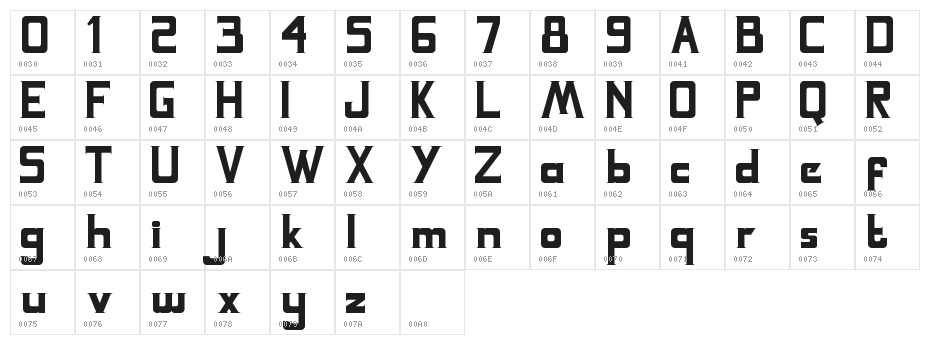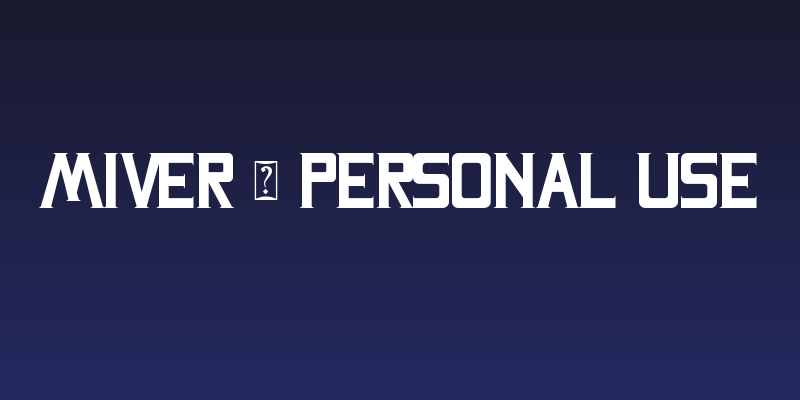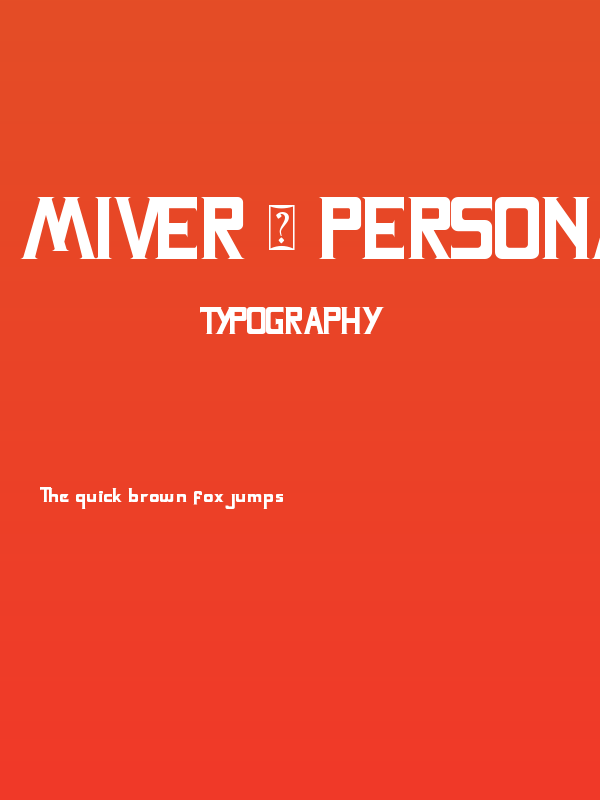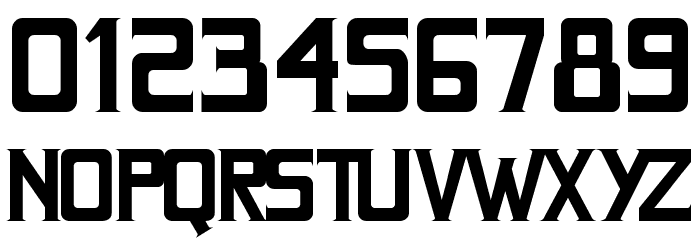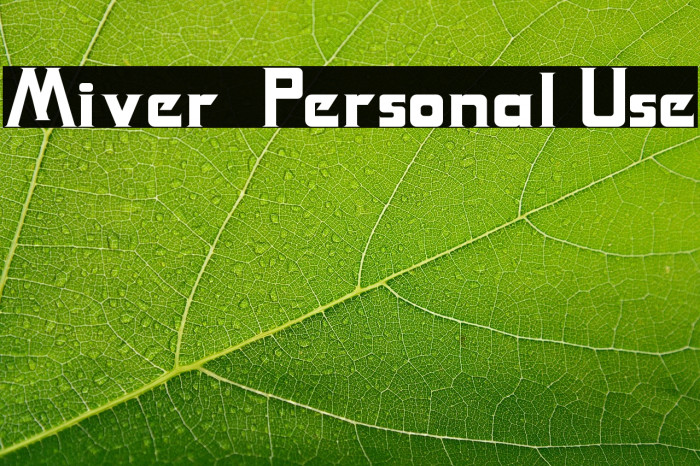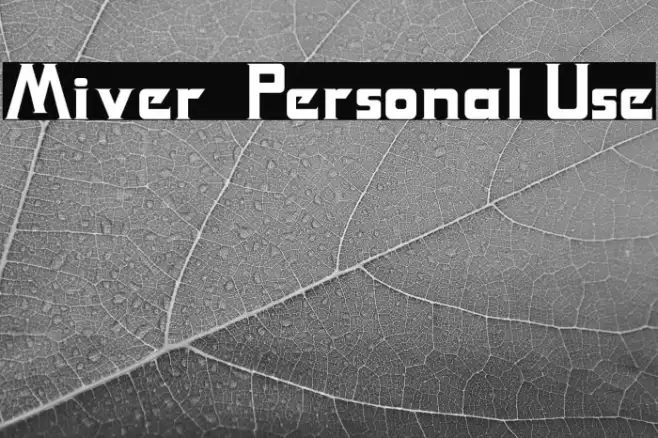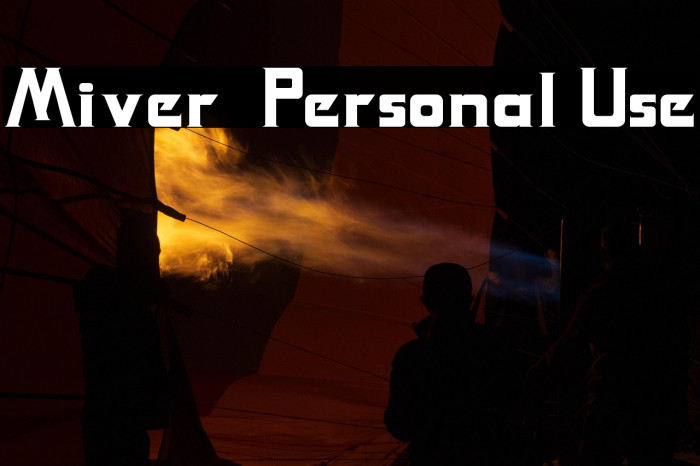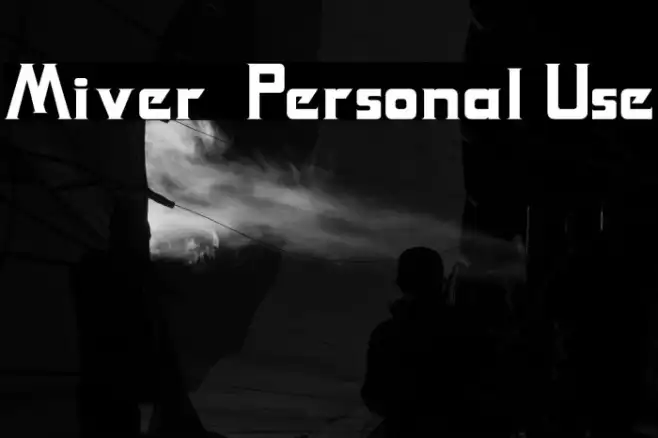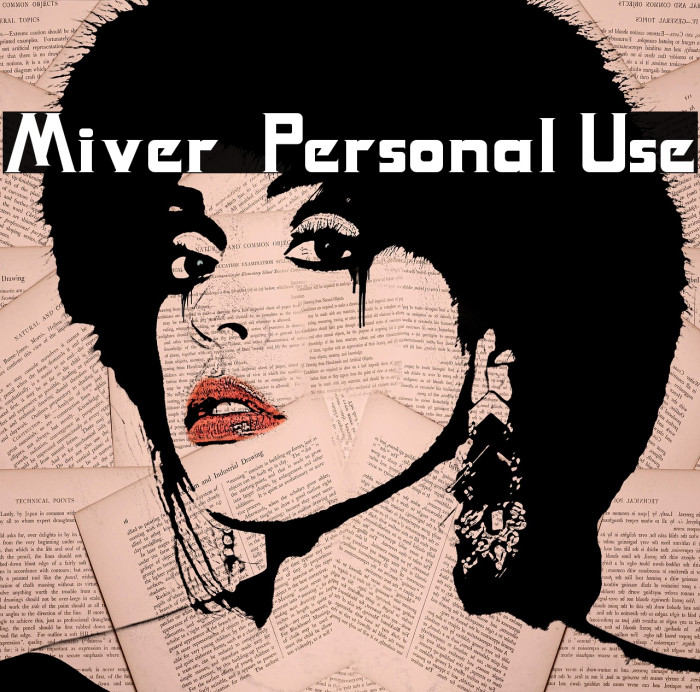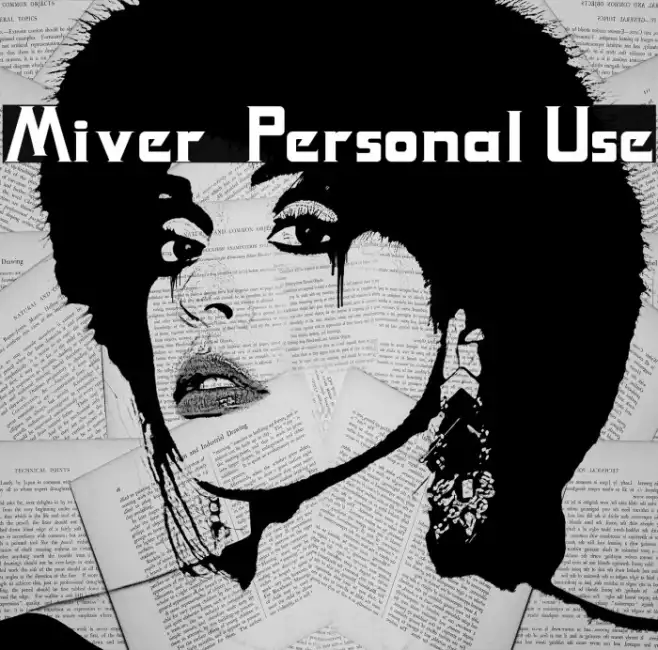
Miver - Personal Use Font
Miver - Personal Use Description
This font features a bold and geometric design with a strong presence. The uppercase letters have a distinctive angular style, with sharp edges and unique cutouts that give them a futuristic appearance. The lowercase letters maintain a consistent geometric theme, offering a cohesive look across all characters. Numbers are equally bold and follow the same angular design, ensuring readability and impact. The special characters are designed to match the overall aesthetic, making this font suitable for various creative applications.
| Proposed Projects | Ideal for branding, posters, and digital media where a modern and impactful look is desired. |